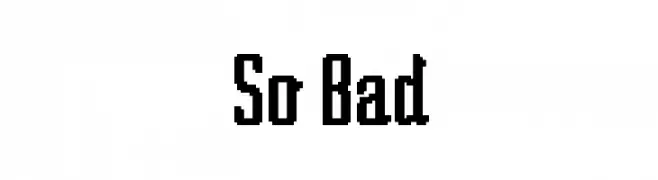
A bold, condensed, and geometric font with a modern, pixelated style.
A condensed, modern font with tall, narrow letters and consistent stroke width.
A tall, narrow font with thin strokes and a modern, elegant style.
A geometric, pixelated font with a retro digital style.
A wide, geometric font with a modern, digital aesthetic.
A bold, hand-drawn font with an expressive and artistic style.
A bold, jagged font with a torn paper effect, perfect for dramatic designs.
A playful, hand-drawn font with a liquid-like, whimsical style.